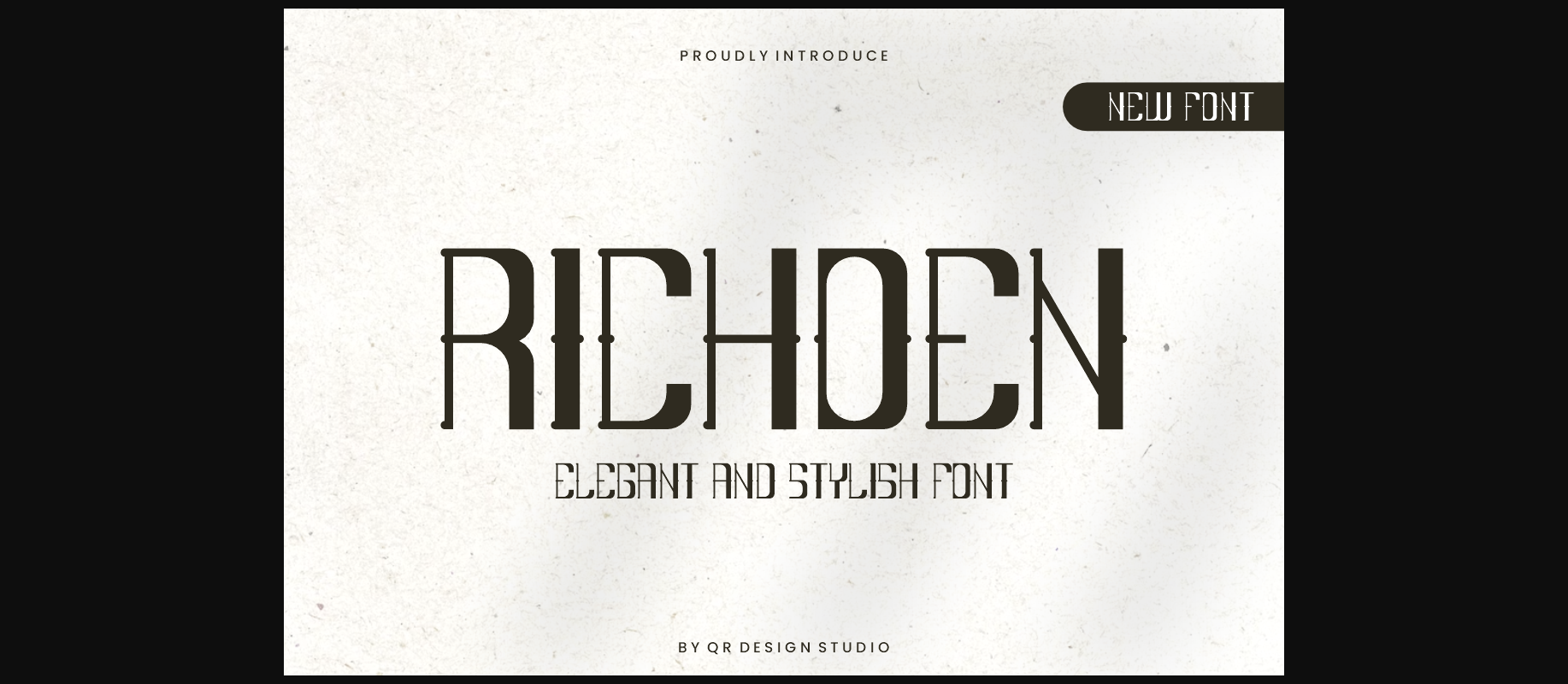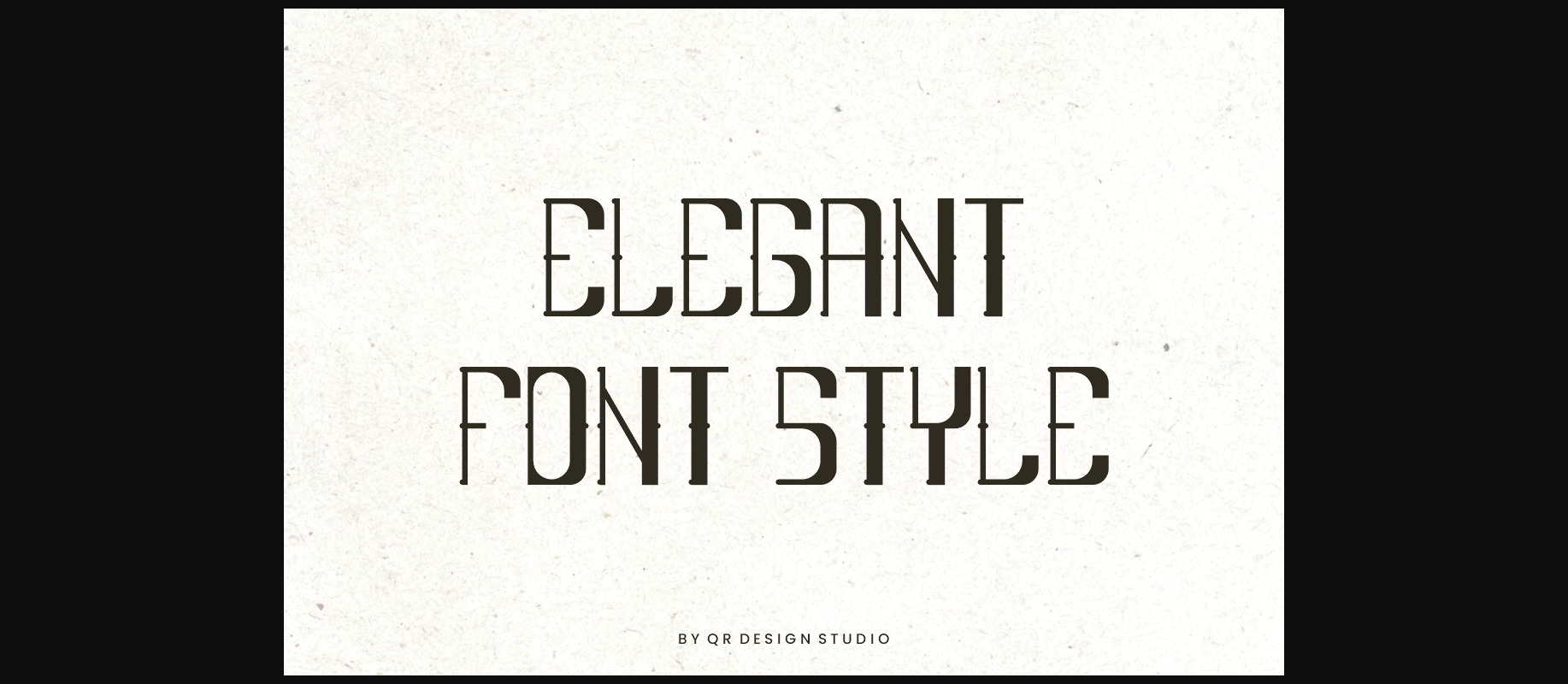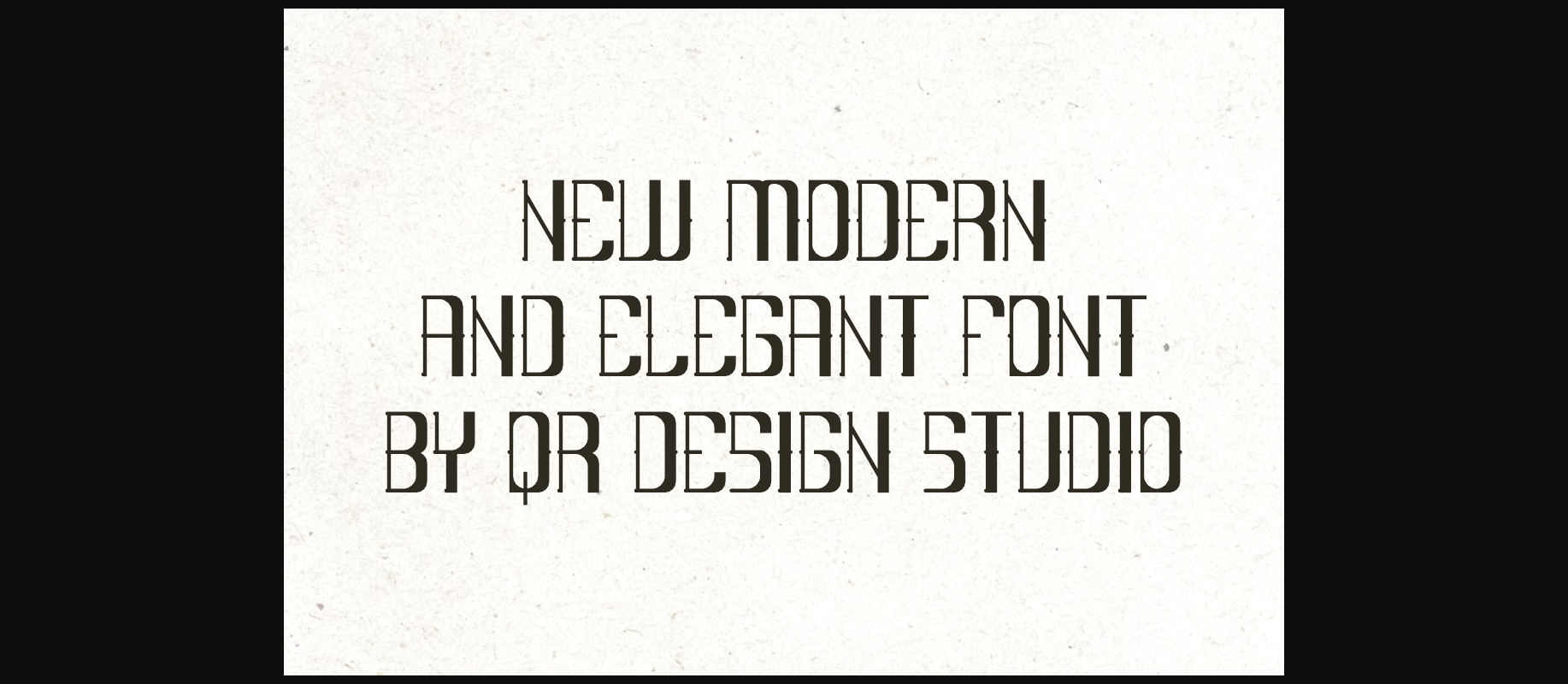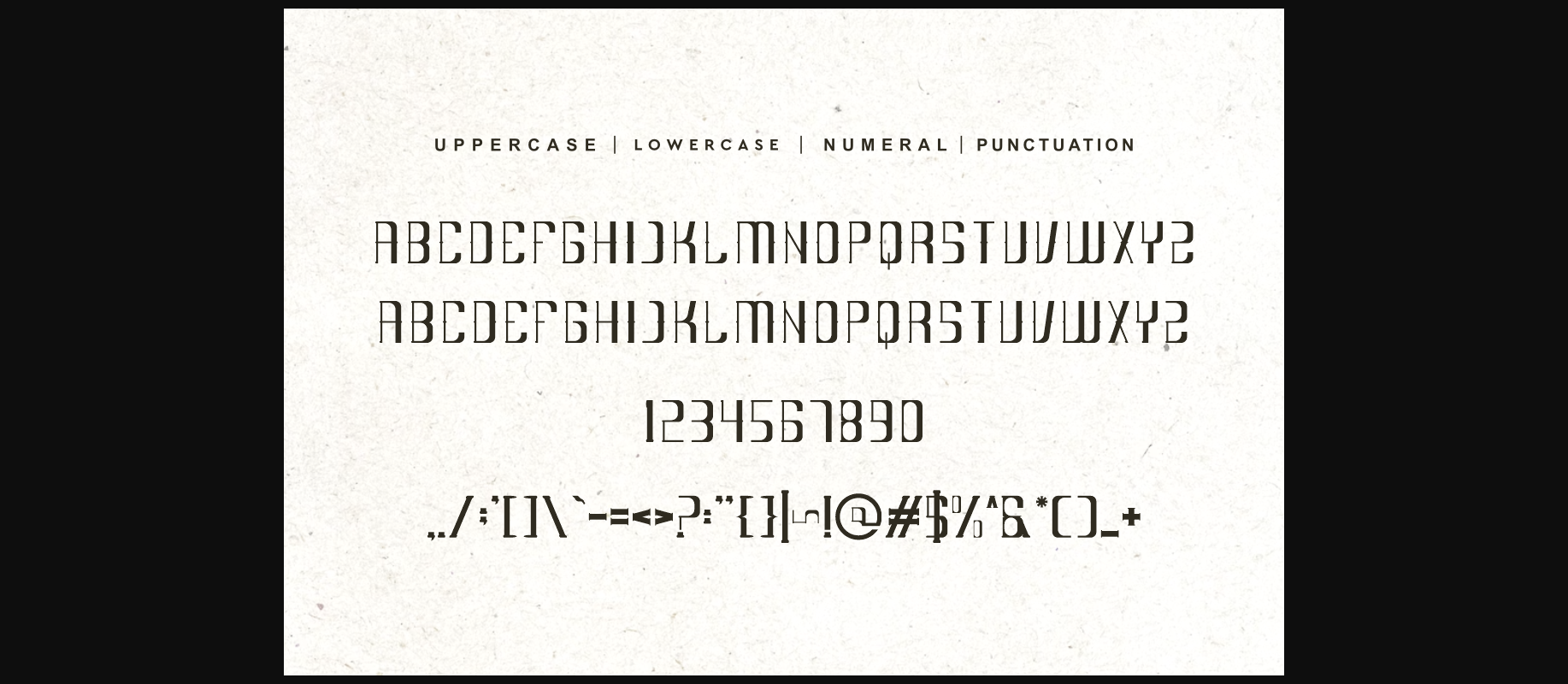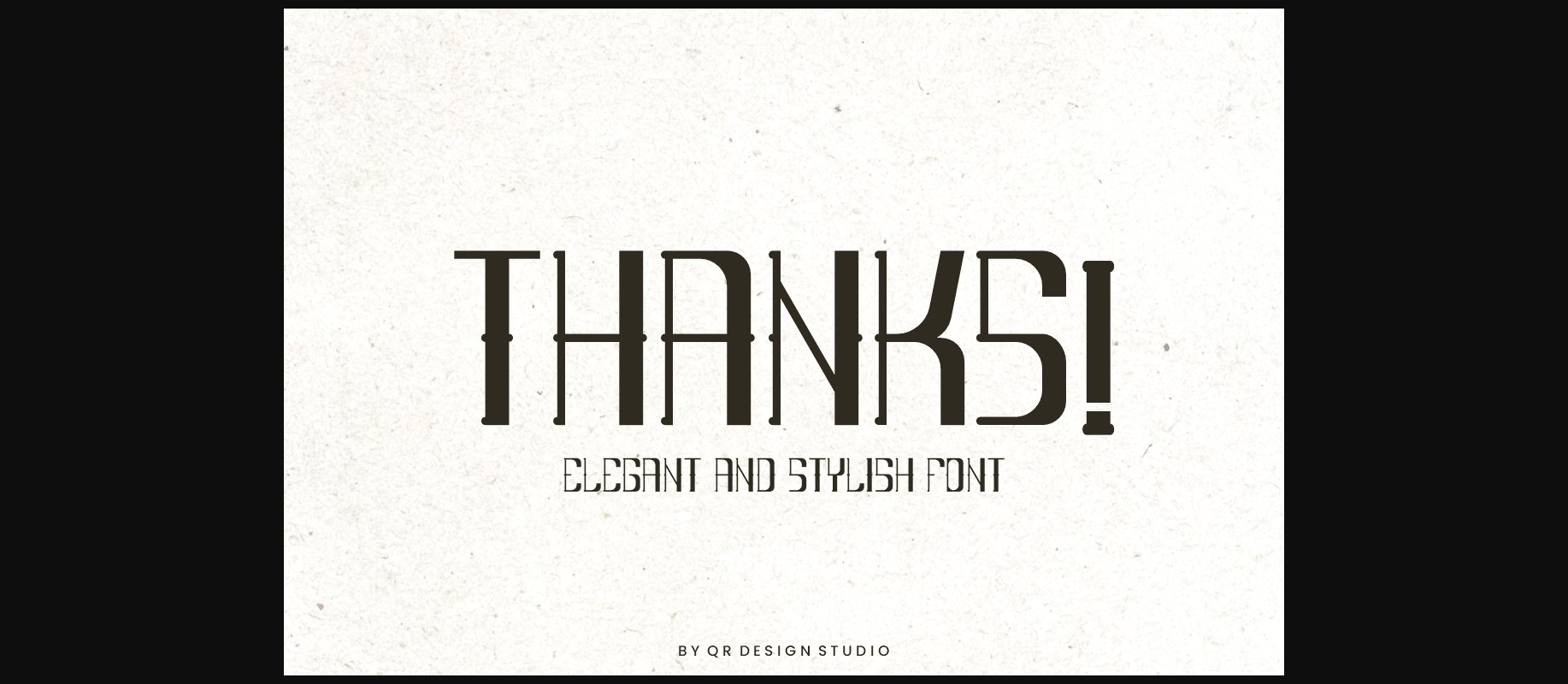
Richoen Font
About Richoen Font
Richoen Font is a unique and interesting display decorative font. A little bit quirky, this font looks incredibly adept on a wide variety of contexts!